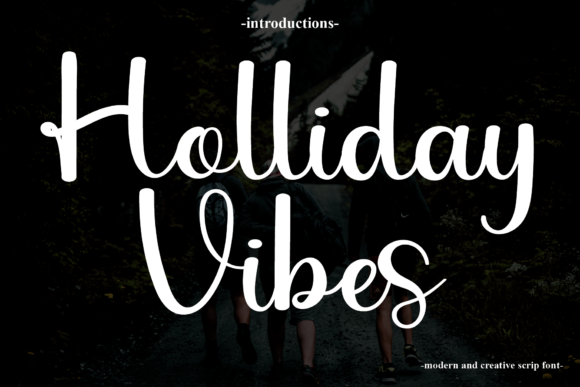
Embark on a typographic adventure with Holliday Vibes Font, a script font family that exudes elegance and charm. Designed with passion by handwrittenwanda, this font is meticulously crafted to capture the essence of handwritten artistry, adding a touch of sophistication and warmth to your creative projects.
Immerse yourself in the beauty of Holliday Vibes, a script font that dances across the page with grace and fluidity. Its authentic feel transports you to a world of romance and nostalgia, evoking memories of handwritten letters and cherished moments. With Holliday Vibes, your words will come alive, leaving a lasting impression on your audience.
Unleash your creativity and let your imagination soar with Holliday Vibes. Whether you're designing wedding invitations, creating personalized stationary art, crafting eye-catching social media posts, or sending heartfelt greeting cards, this font will elevate your designs to new heights. Its versatility knows no bounds, making it the perfect choice for a wide range of projects.
With Holliday Vibes, you'll say goodbye to dull and ordinary typography and embrace a world of elegance and charm. Its enchanting characters will add a touch of magic to your designs, captivating your audience with their timeless beauty and unique personality. Experience the joy of creating designs that resonate with your audience and leave a lasting impression.